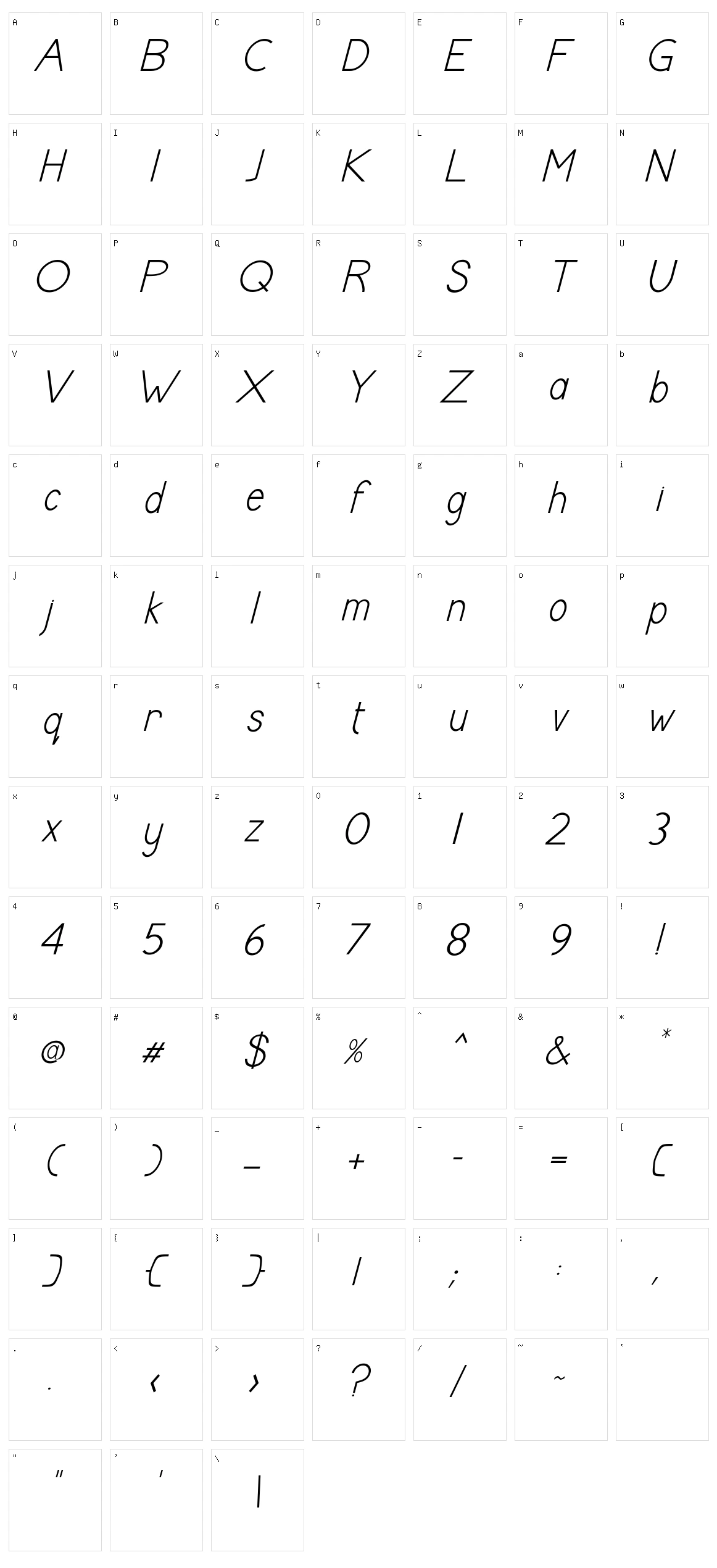
The free font Shauna is carefully designed by mbafonts, showcasing a thoughtful balance of creativity and usability and falls under the Sans serif font style. When you download the ZIP file, it contains only 61.51 KB of font files, making it lightweight and quick to download. Please review the license details below to understand permitted usage and distribution rights. If license information is not available, we recommend using this font for personal projects only or contacting the author directly for commercial usage permissions.